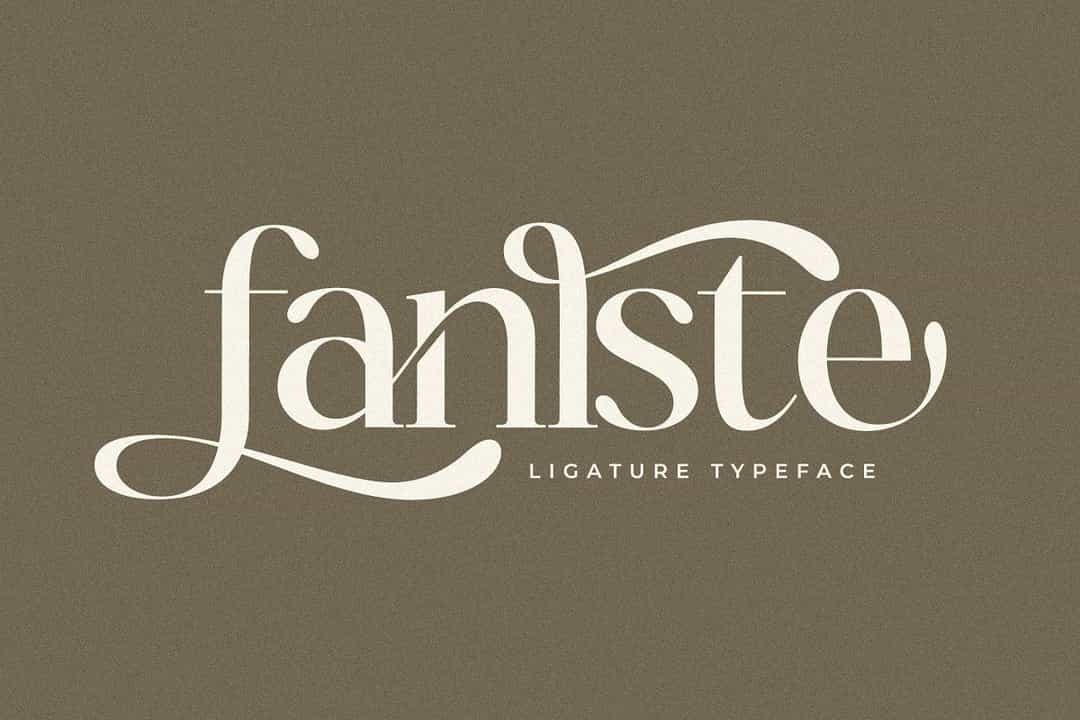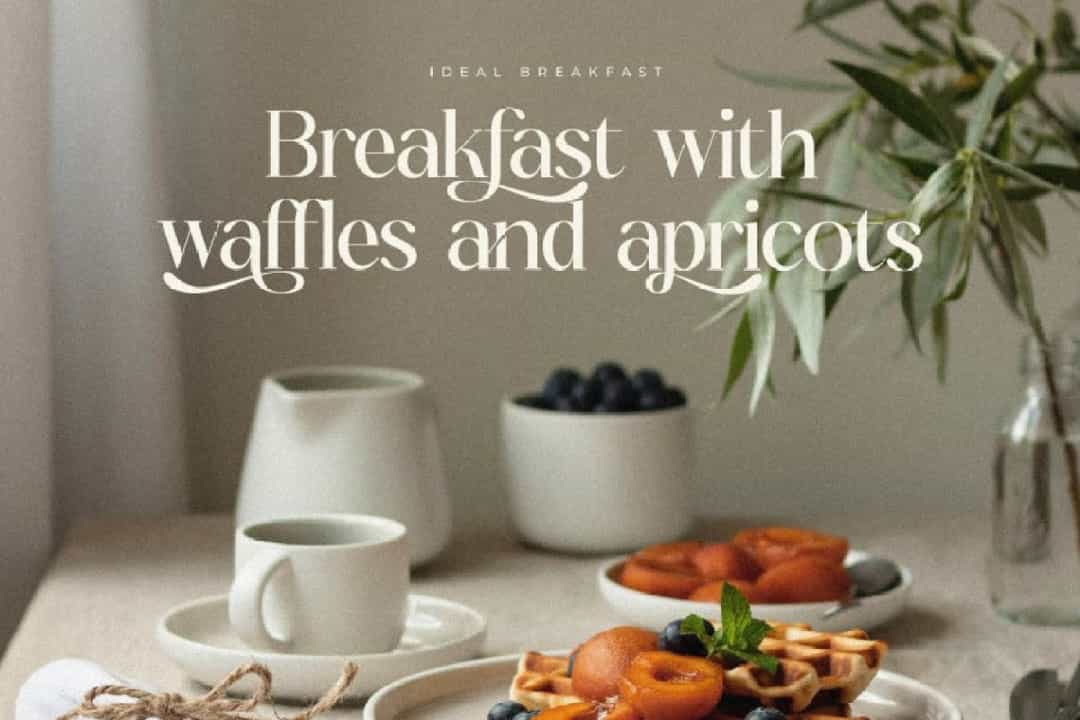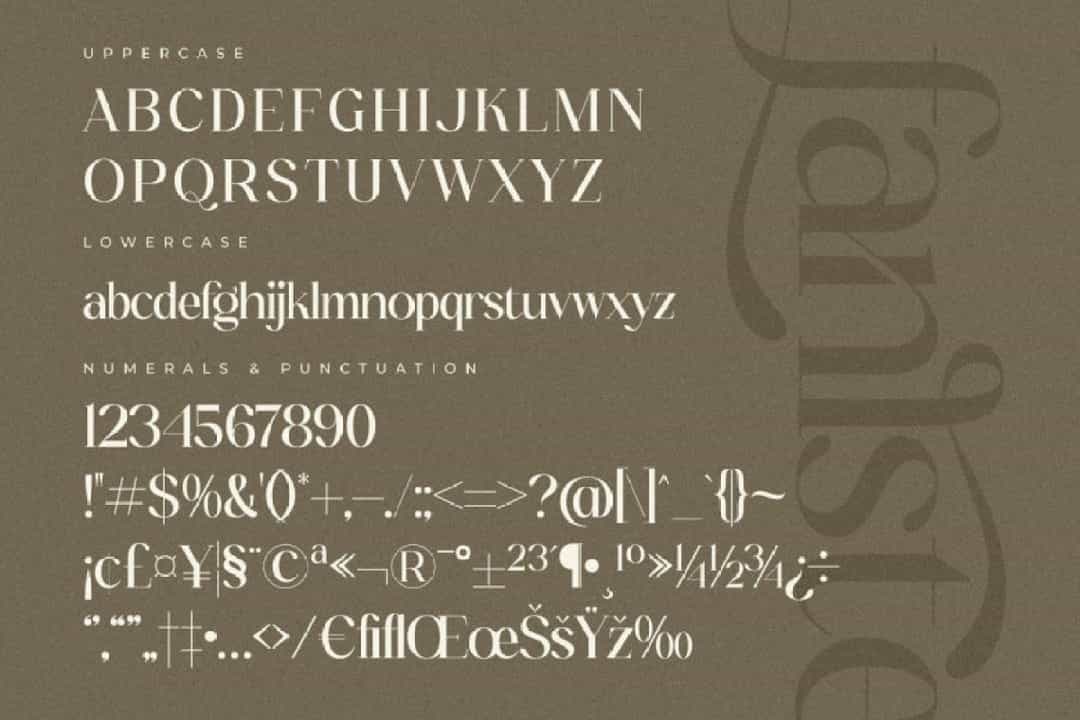
Fanlste is an elegant and attractive serif typeface with a stylish appearance, designed specifically to add classy touches to high-end projects and feminine designs. Perfect for contemporary yet fashionable designs.